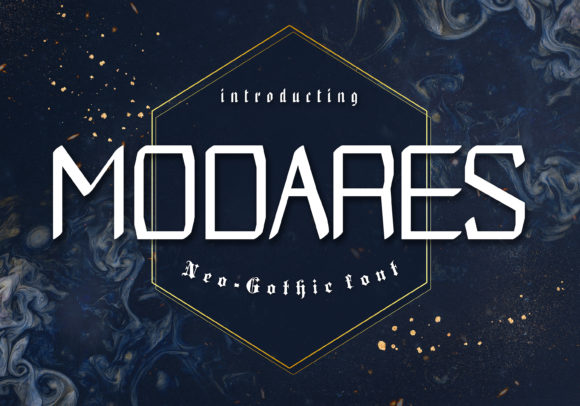
Embark on a typographic journey with Modares, the font crafted to captivate and inspire. This neo-gothic masterpiece dances effortlessly across your designs, transforming them into works of art. Its versatility knows no bounds, effortlessly complementing a myriad of creative visions.
Imagine the allure of a minimalist website adorned with Modares' clean lines and striking presence. Its meticulously crafted glyphs draw attention to your content, enchanting visitors with their timeless elegance.
Beyond websites, Modares graces logos, branding, and packaging with its distinctive charm. Its ability to elevate even the most ordinary designs into extraordinary creations is truly remarkable. Witness the power of Modares as it breathes life into your projects, captivating audiences and leaving a lasting impression.
Indulge in the world of Modares, where typography transcends the ordinary and becomes an expression of your creativity. Its versatility empowers you to explore endless possibilities, while its captivating aura ensures your designs stand out from the crowd.
Embrace the allure of Modares today and unlock a world of typographic wonders. Let its transformative power elevate your creations to new heights, leaving an unforgettable mark on the hearts of your audience.